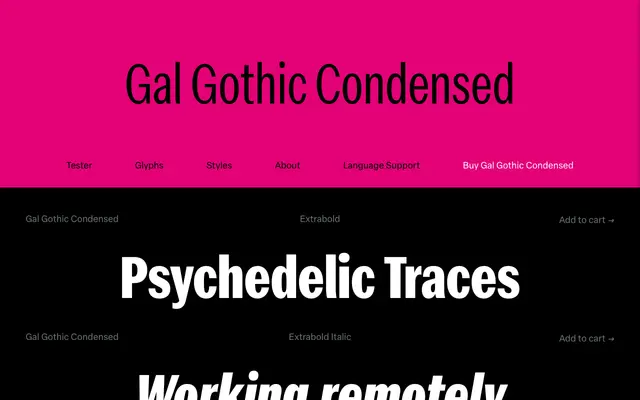
Gal Gothic Condensed
Blackletra · Daniel Sabino · 2024
A condensed grotesque by Daniel Sabino that takes Franklin Gothic as its starting point, extending its characteristic stroke contrast consistently across all weights from Light to Extrabold.
Where Morris Fuller Benton's Franklin Gothic confined its notable stroke contrast to the heavier weights, Gal Gothic Condensed redistributes that quality across the full range, from Light to Extrabold, creating a more unified family. Neo-grotesque touches, including horizontal stroke terminals, smooth junctions between verticals and curves, and round punctuation dots, shift the tone away from the original reference. Each of the twelve static styles carries around 900 glyphs with broad Latin language support, small caps, tabular and old-style figures, and variable font options covering weight and width axes.
Inspired by Franklin Gothic, a classic American grotesque, but refined with neo-grotesque elements including horizontal stroke endings, smooth stem connections and round dots, placing it between the two traditions.